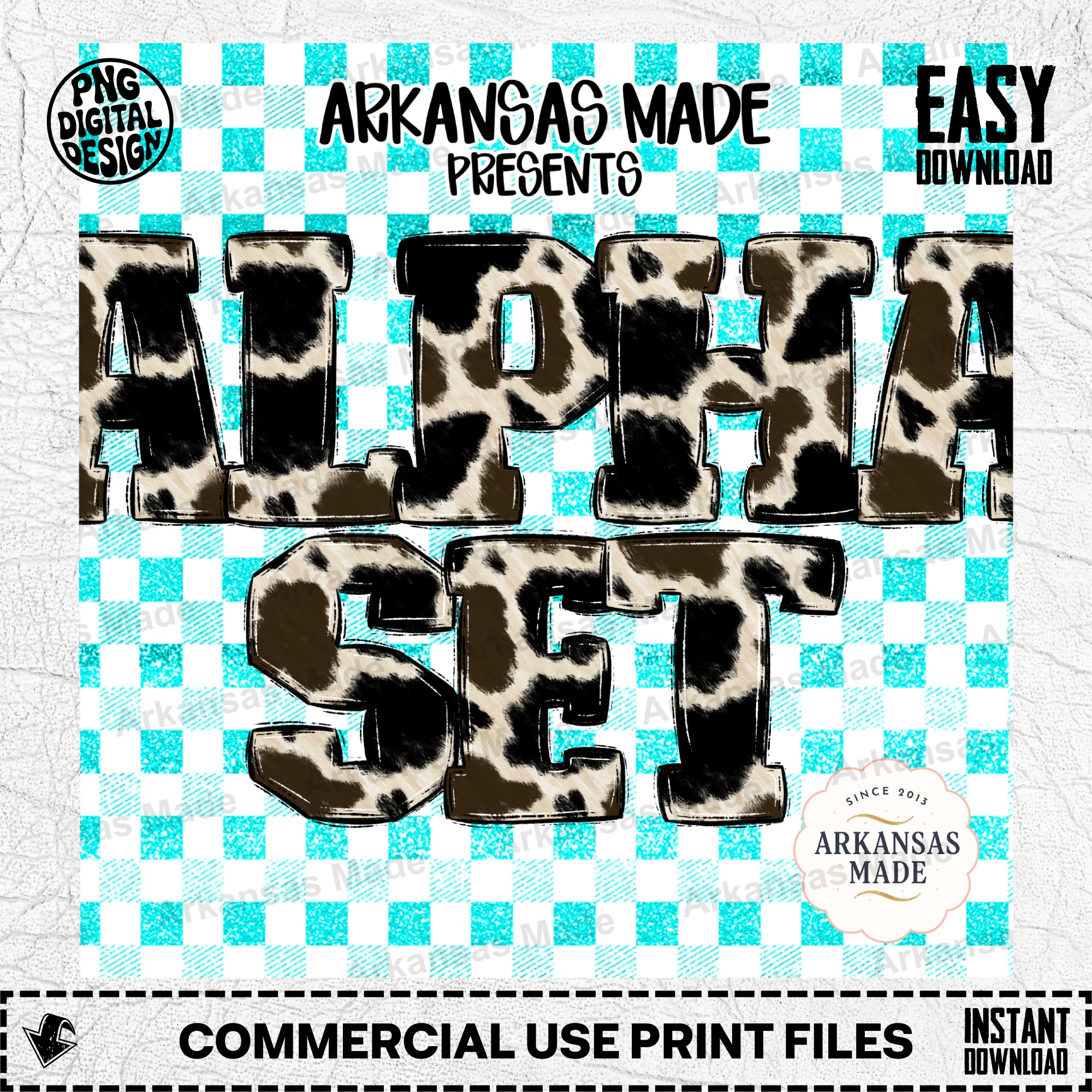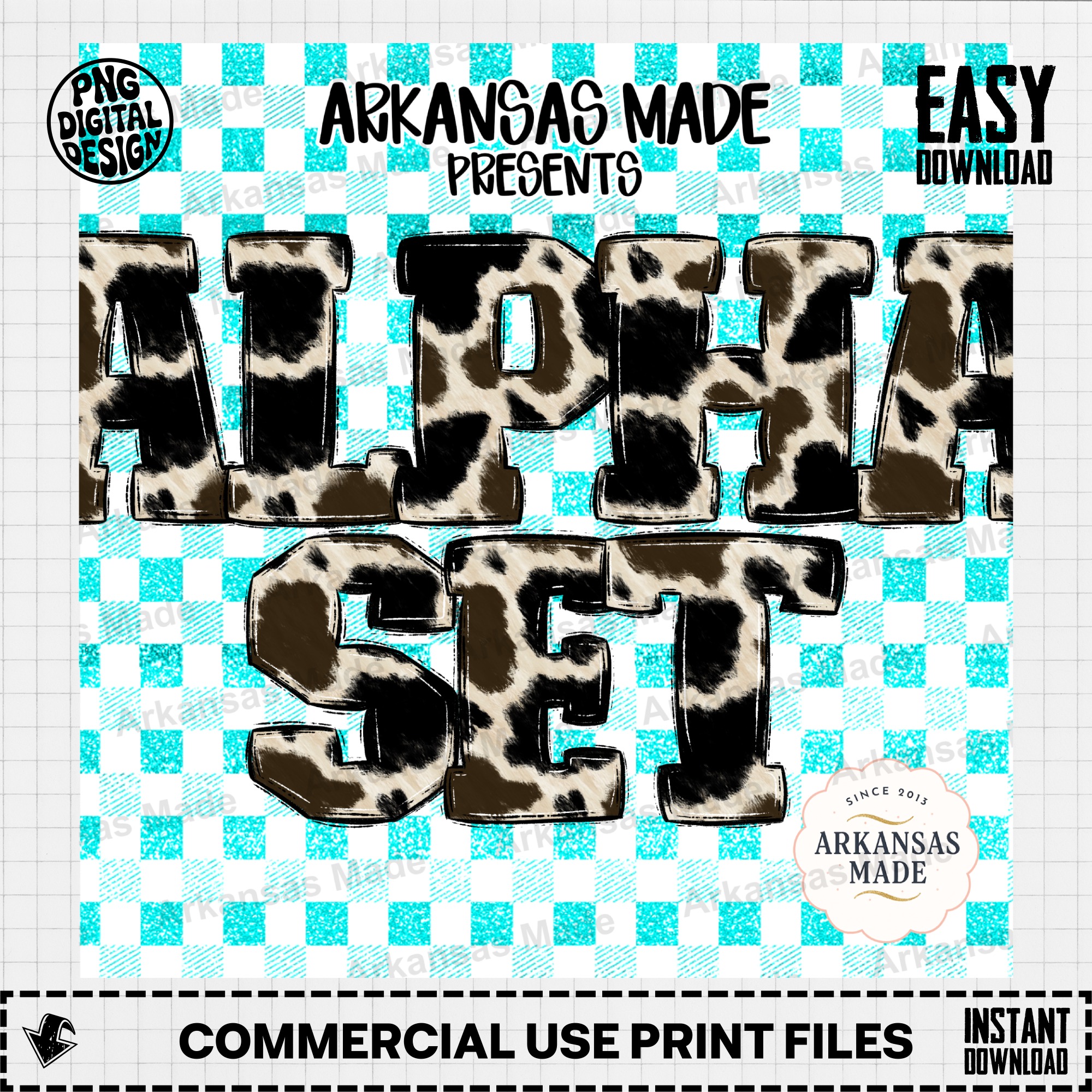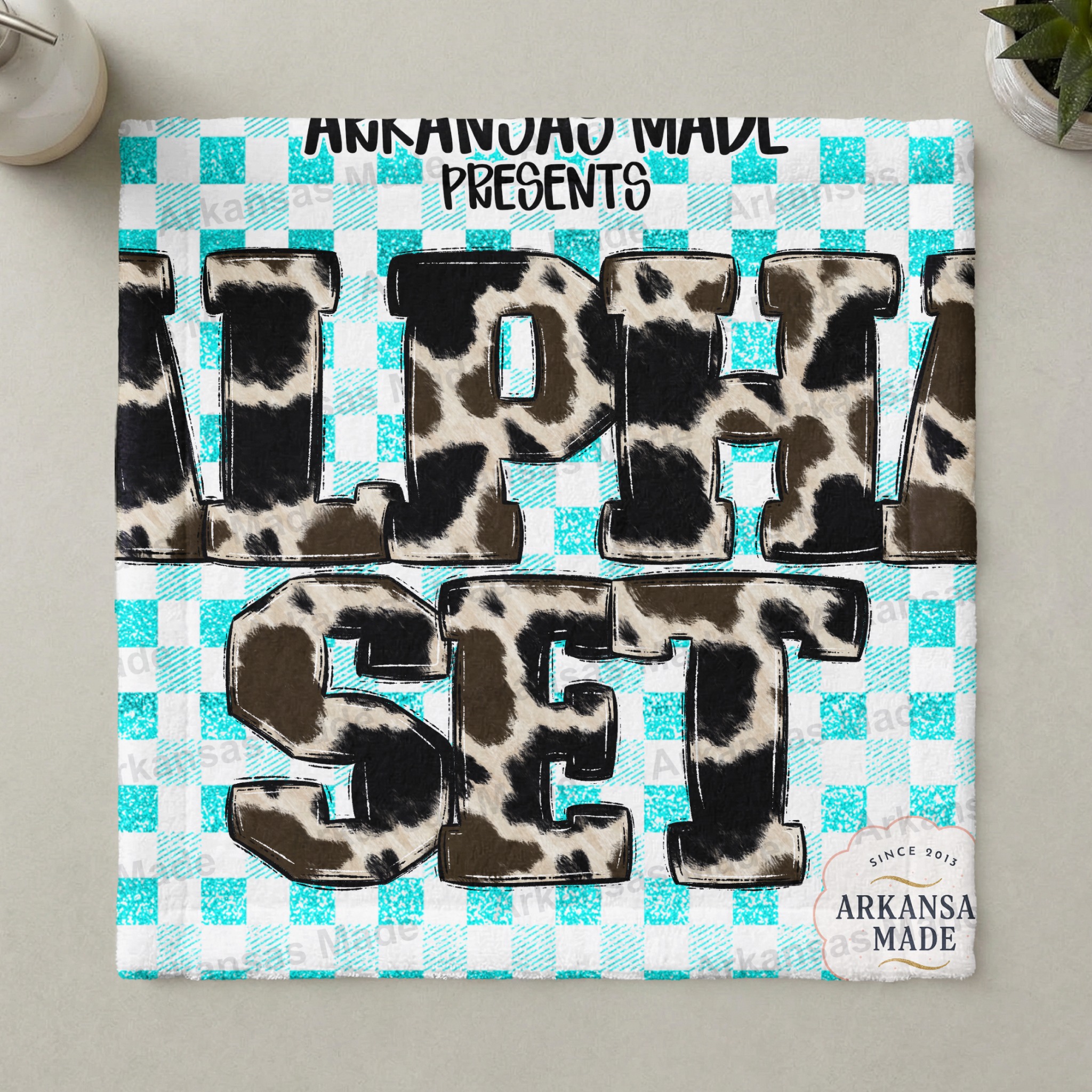
Cow Print Alpha Set Digital Download, Turquoise Glitter Plaid Letters PNG, Western Farmhouse Font, Sublimation Bundle, Craft Letters
Unlock your creativity with this vibrant Cow Print Alpha Set Digital Download, featuring turquoise glitter plaid letters perfect for Western and country designs. Embrace the fun of the Wild West with these unique faux cowhide and sparkly plaid PNG letters. Ideal for crafters, small businesses, and anyone creating personalized items with a farmhouse or rodeo aesthetic. Use this versatile digital bundle to craft custom apparel, party decorations, or unique gifts that truly stand out.